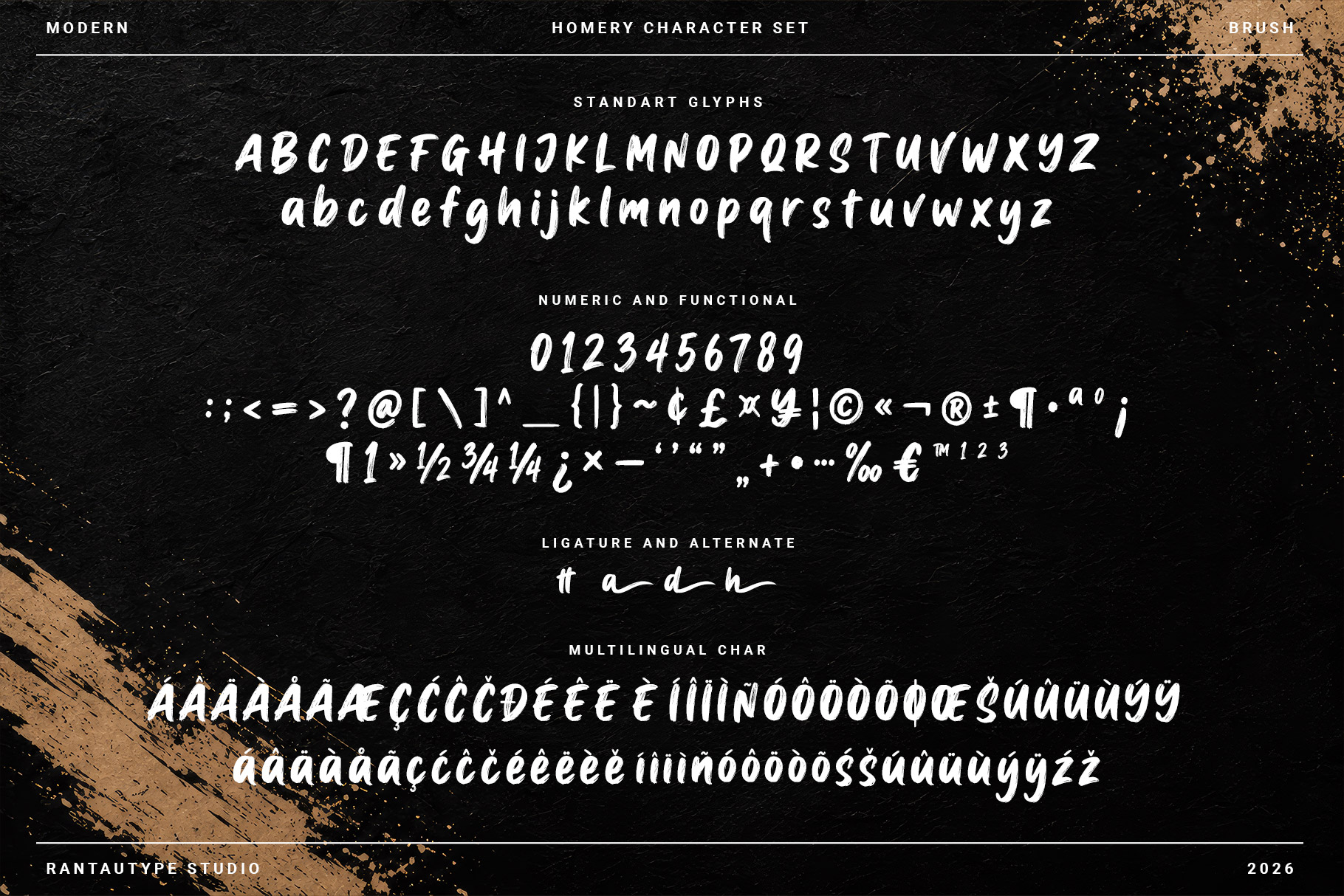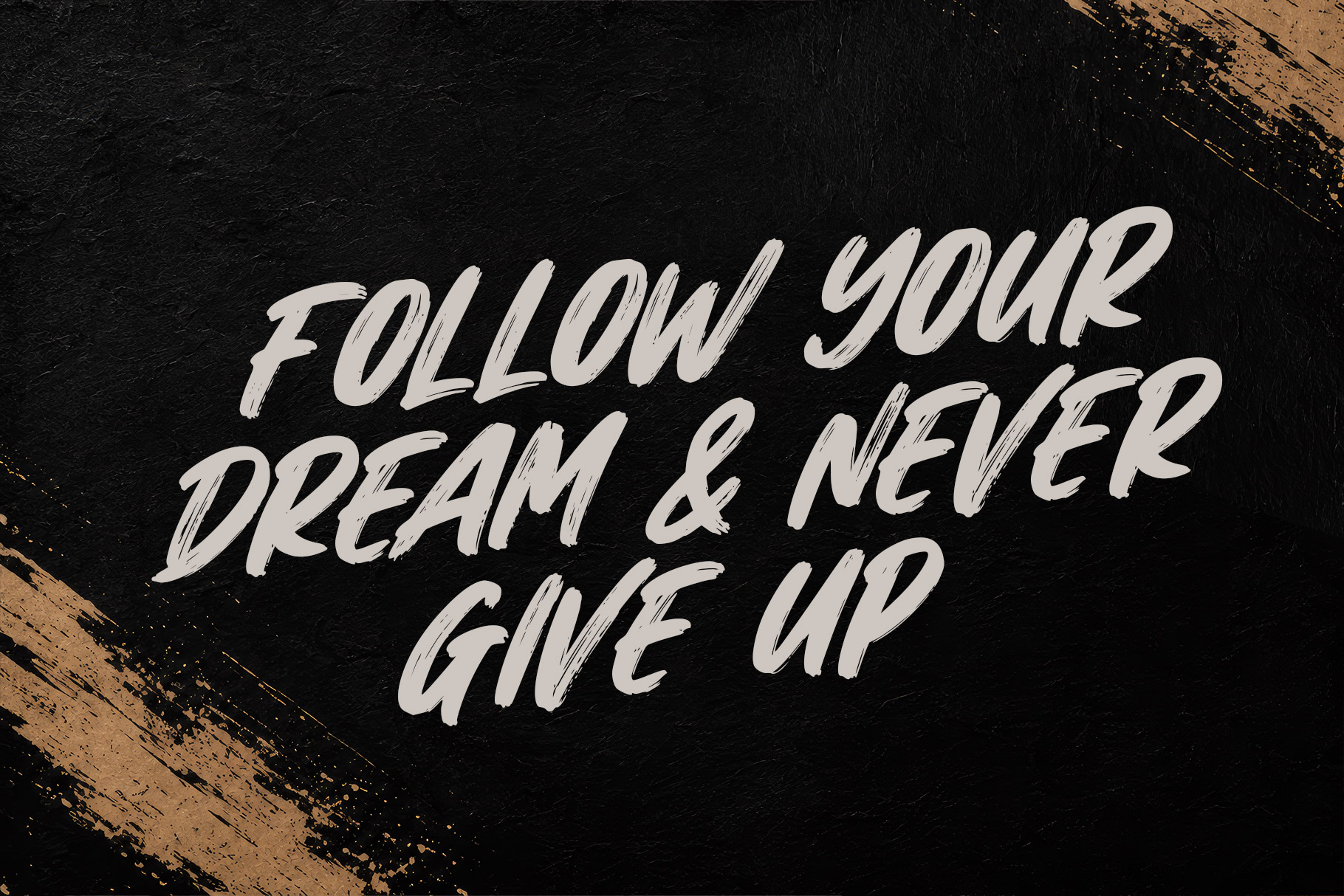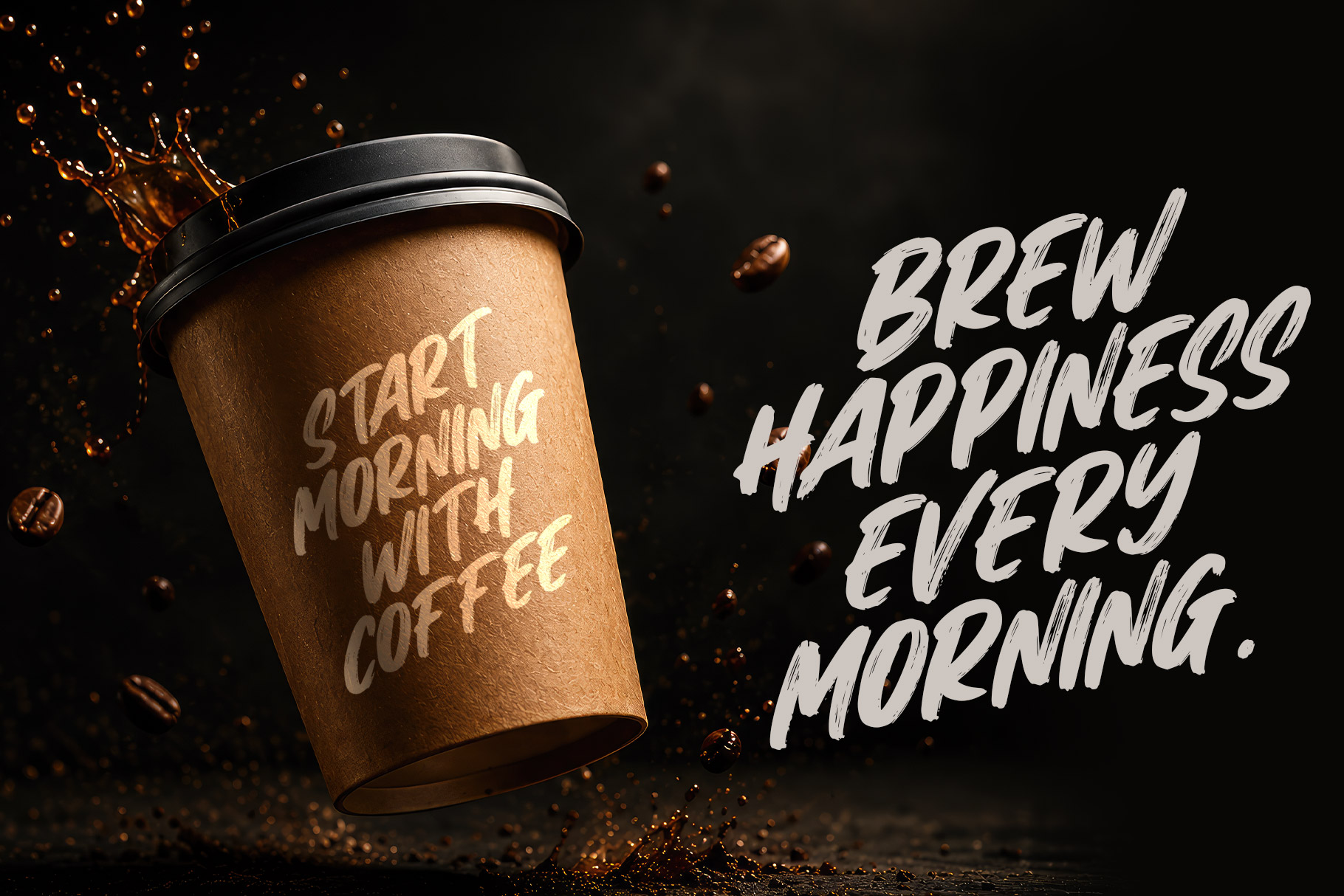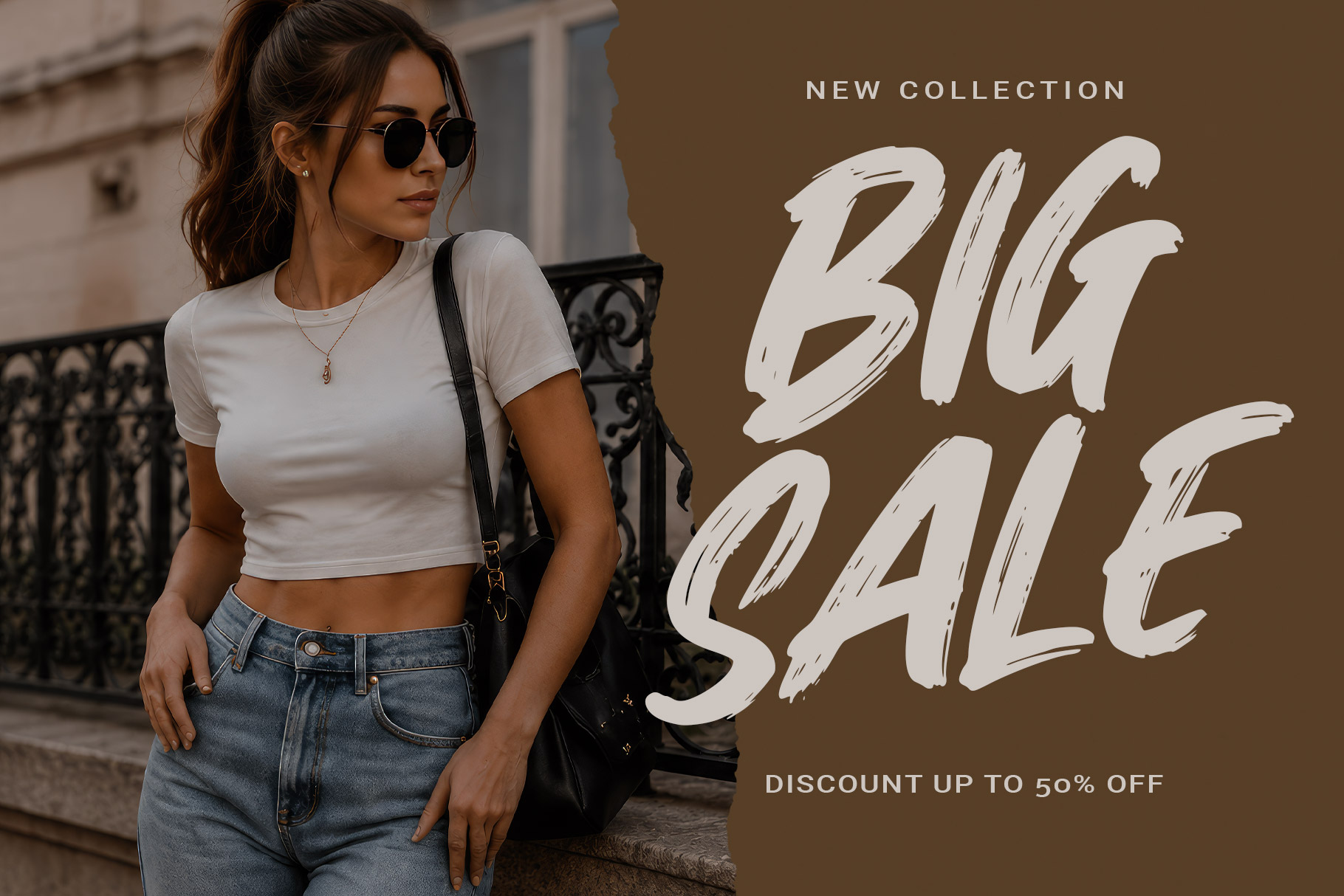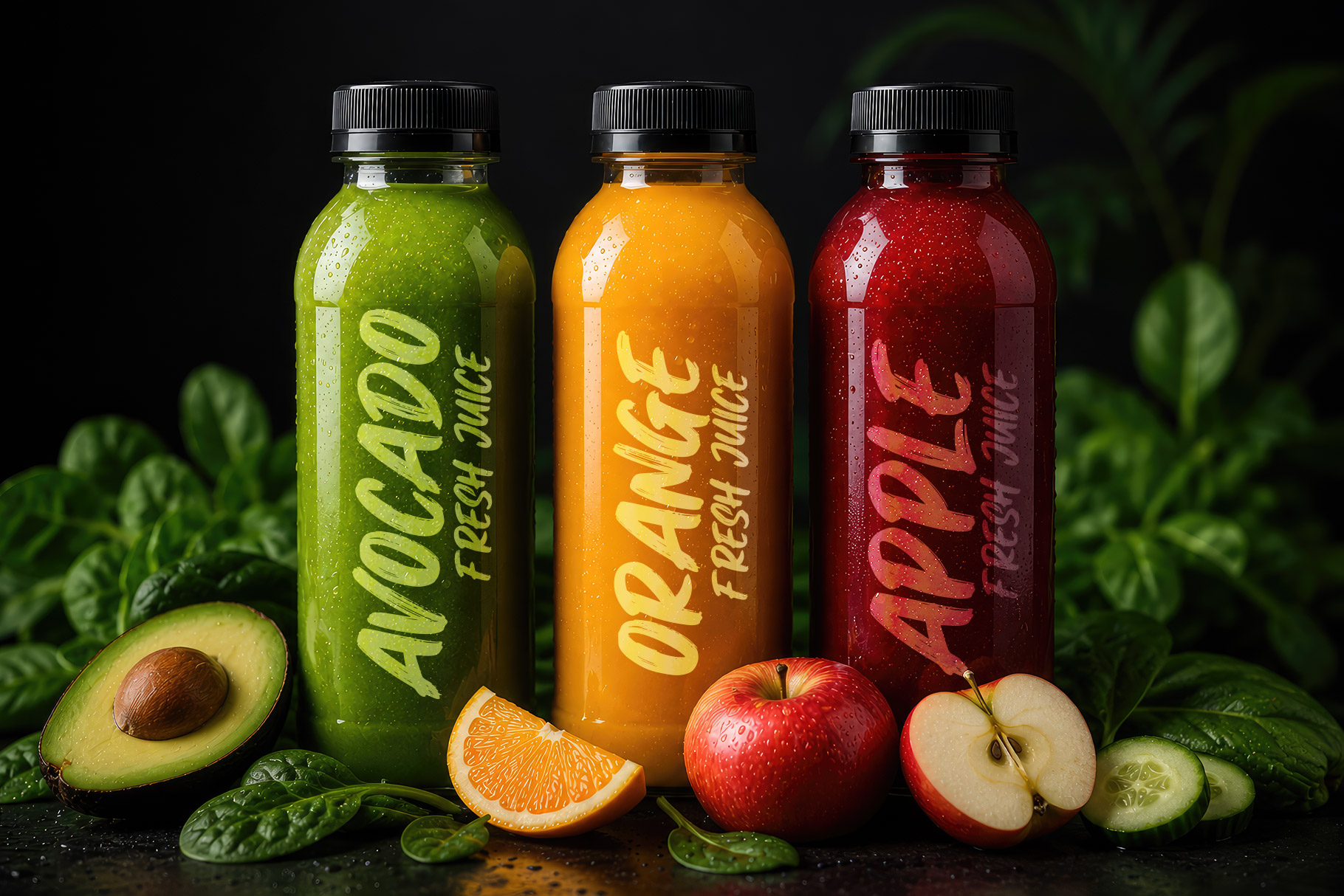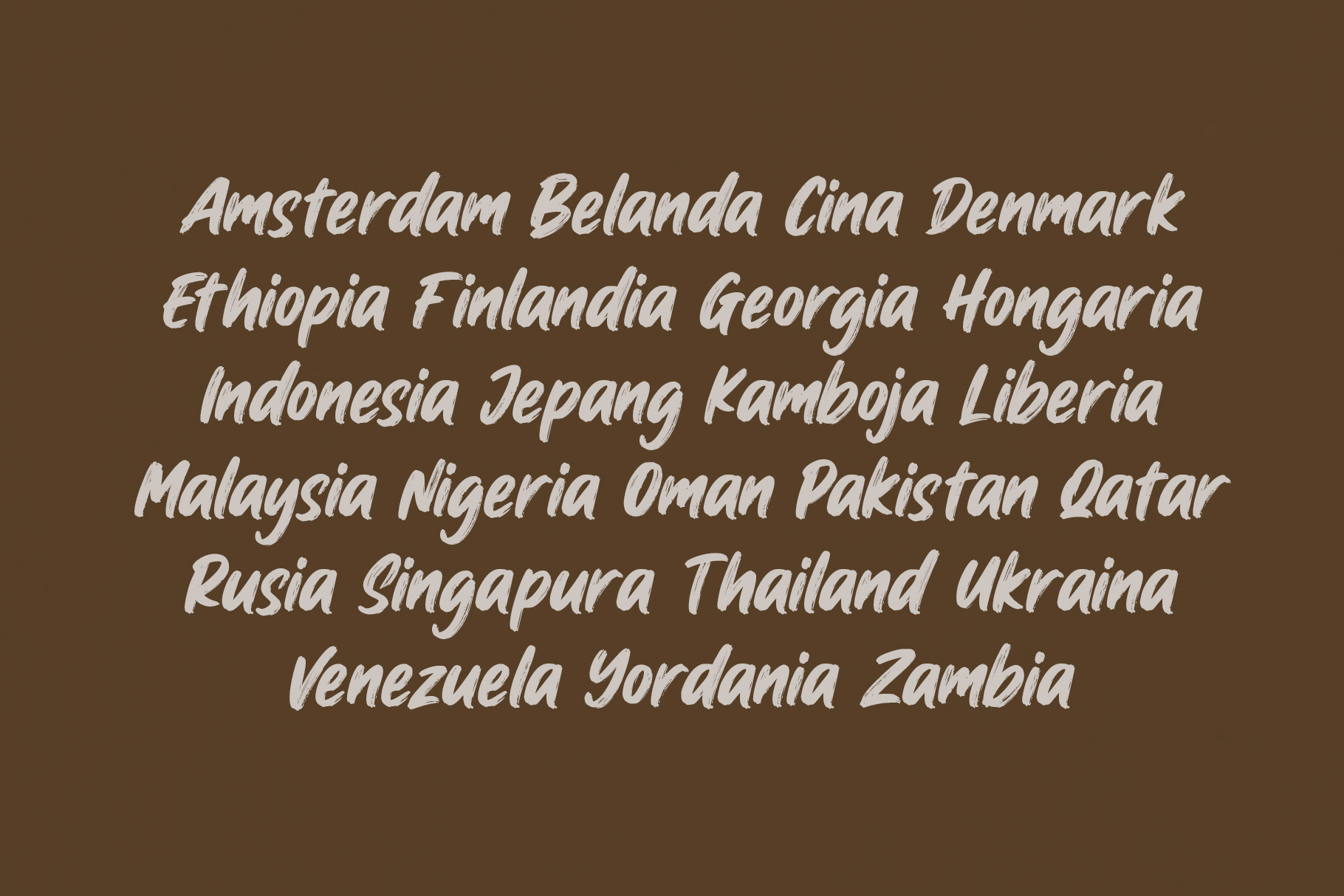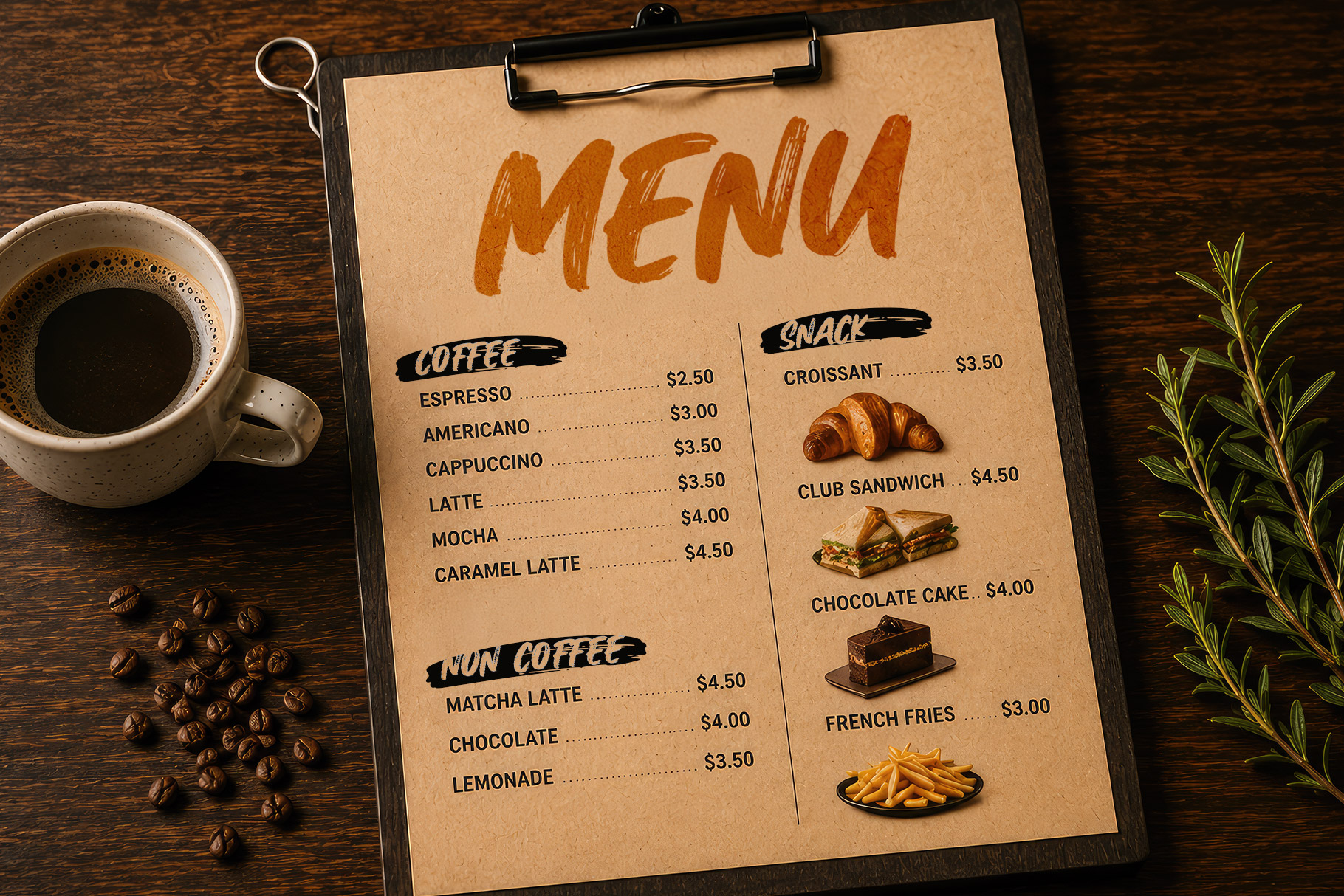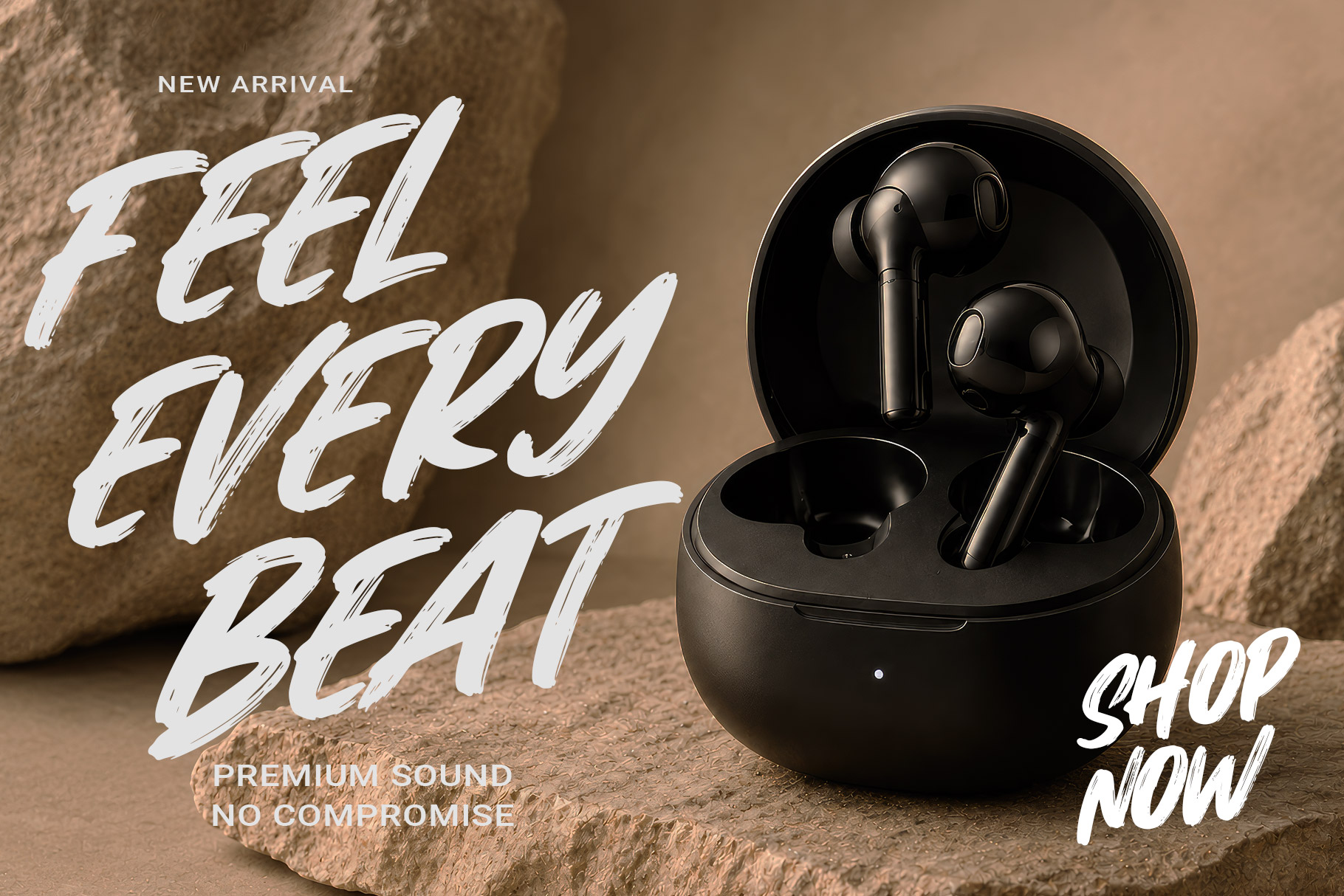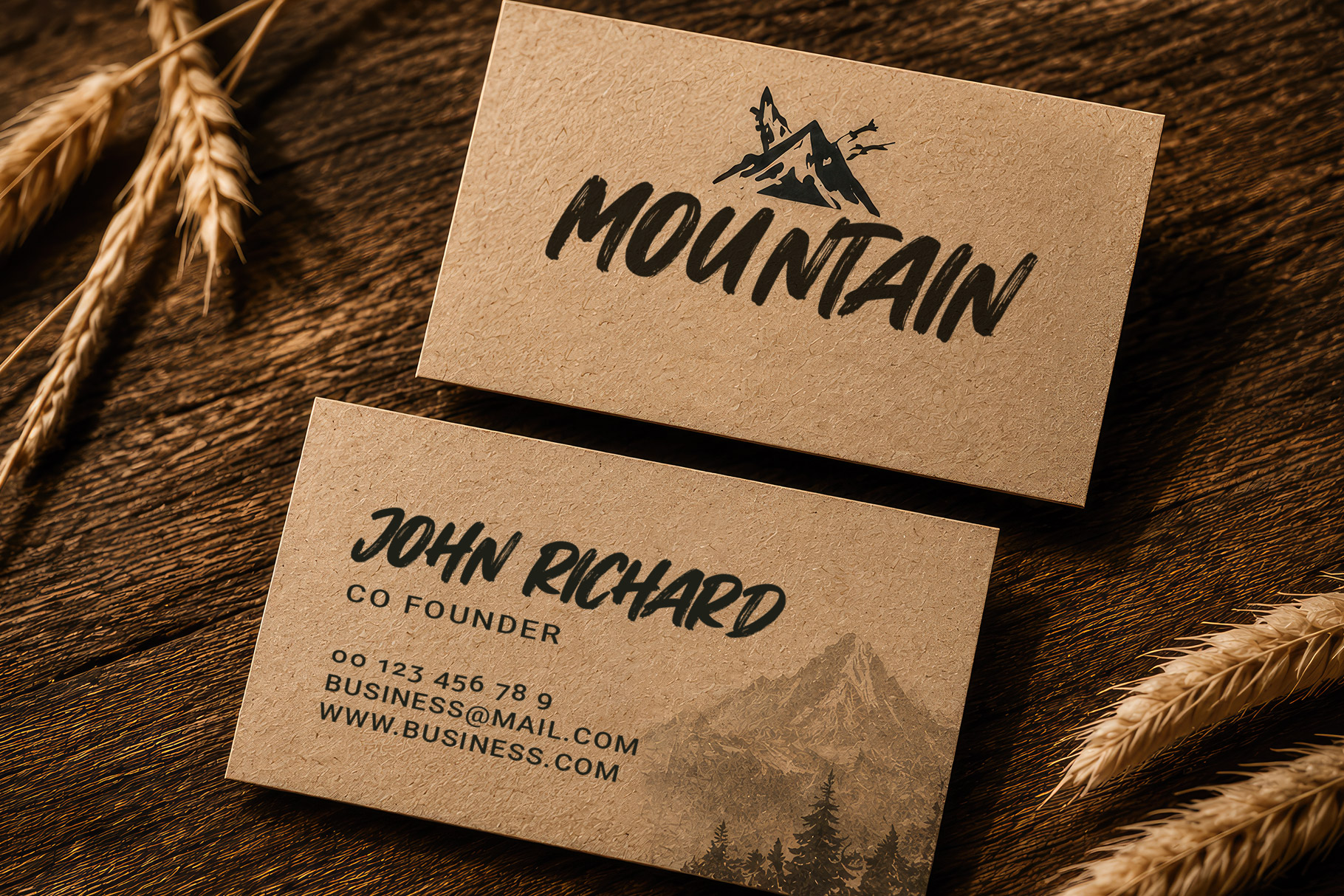
Homery is modern brush font delivers a bold, expressive, and handcrafted personality that instantly commands attention. Homery is a perfectly choice for any creative endeavor, creating, modern, lifestyle design such as logotype, title, cover, branding, invitations, wedding designs, display and magazine, social media posts, advertisements, printed quotes, product packaging, corporate brand, product designs, labels, photography, watermarks, special events and any other project with casual touch.
Homery Modern Brush Font